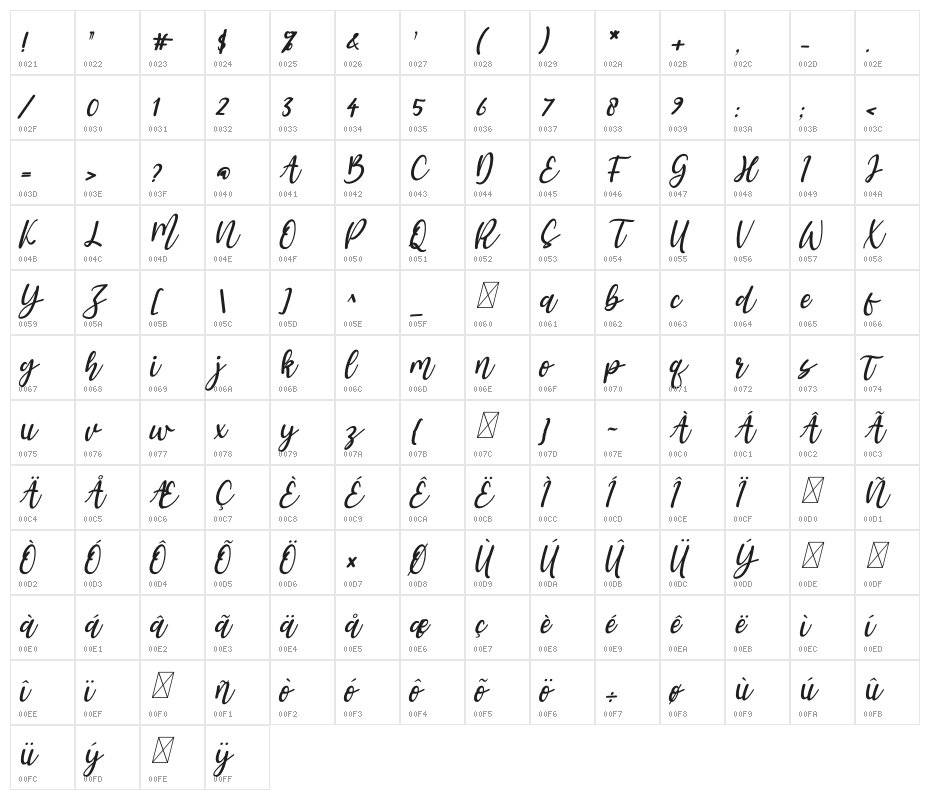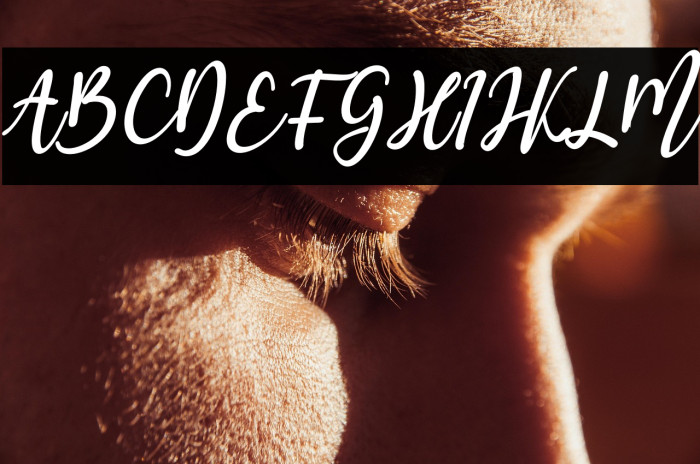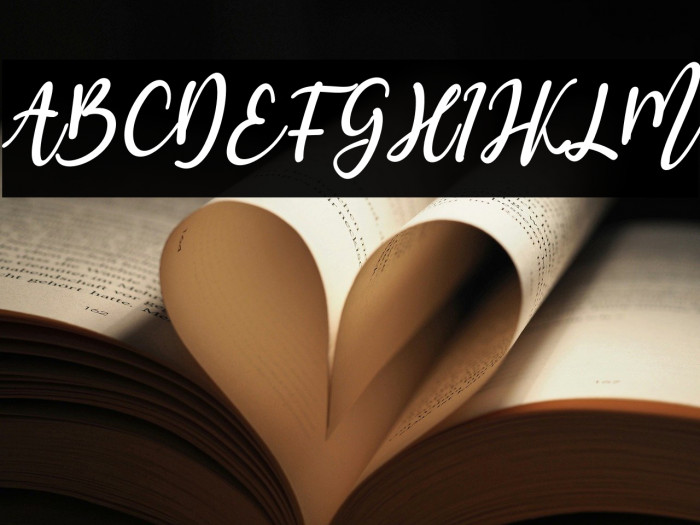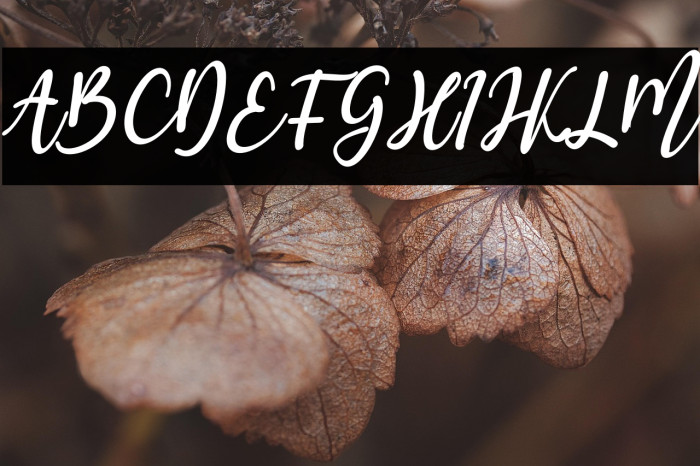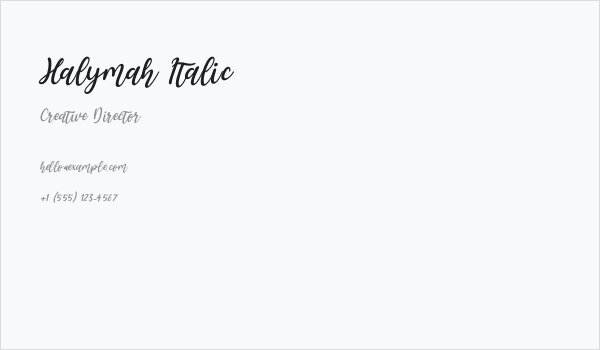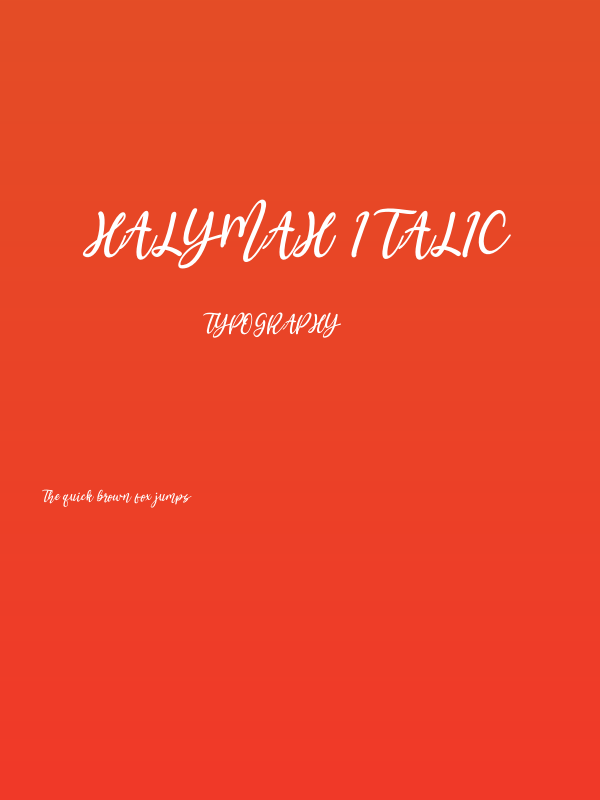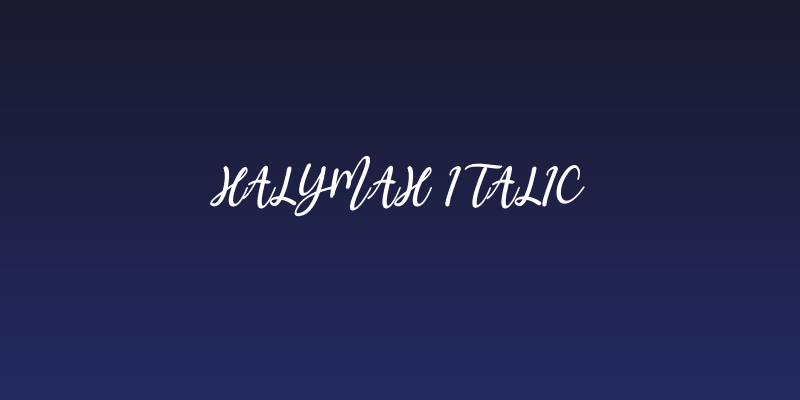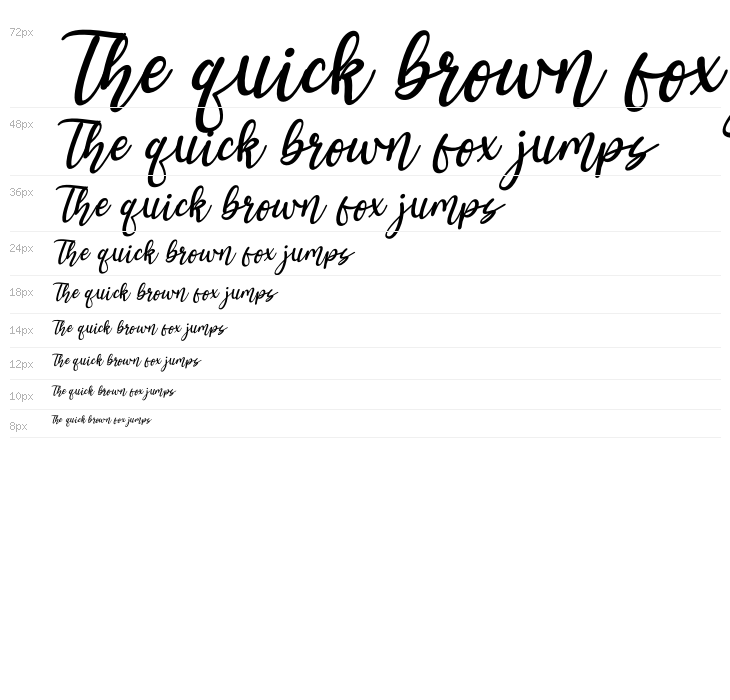
Halymah Italic Font
Halymah Italic Description
This font exudes a lively and dynamic character with its flowing, cursive style. The letters are interconnected, creating a seamless and elegant appearance. The strokes are bold and confident, with a slight slant that adds to its energetic feel. The uppercase letters are distinct and prominent, while the lowercase letters maintain a consistent flow. Numbers and special characters are crafted with the same fluidity, ensuring a cohesive look across all elements. This font is perfect for projects that require a personal and artistic touch.
| Use Case | Logos, Invitations, Artistic designs |
| Proposed Projects | Ideal for wedding invitations, greeting cards, branding, and artistic projects. |